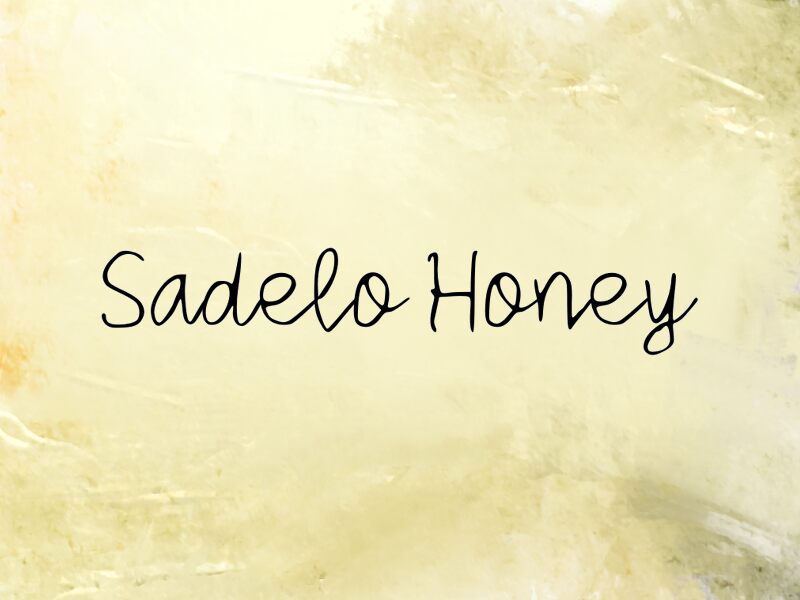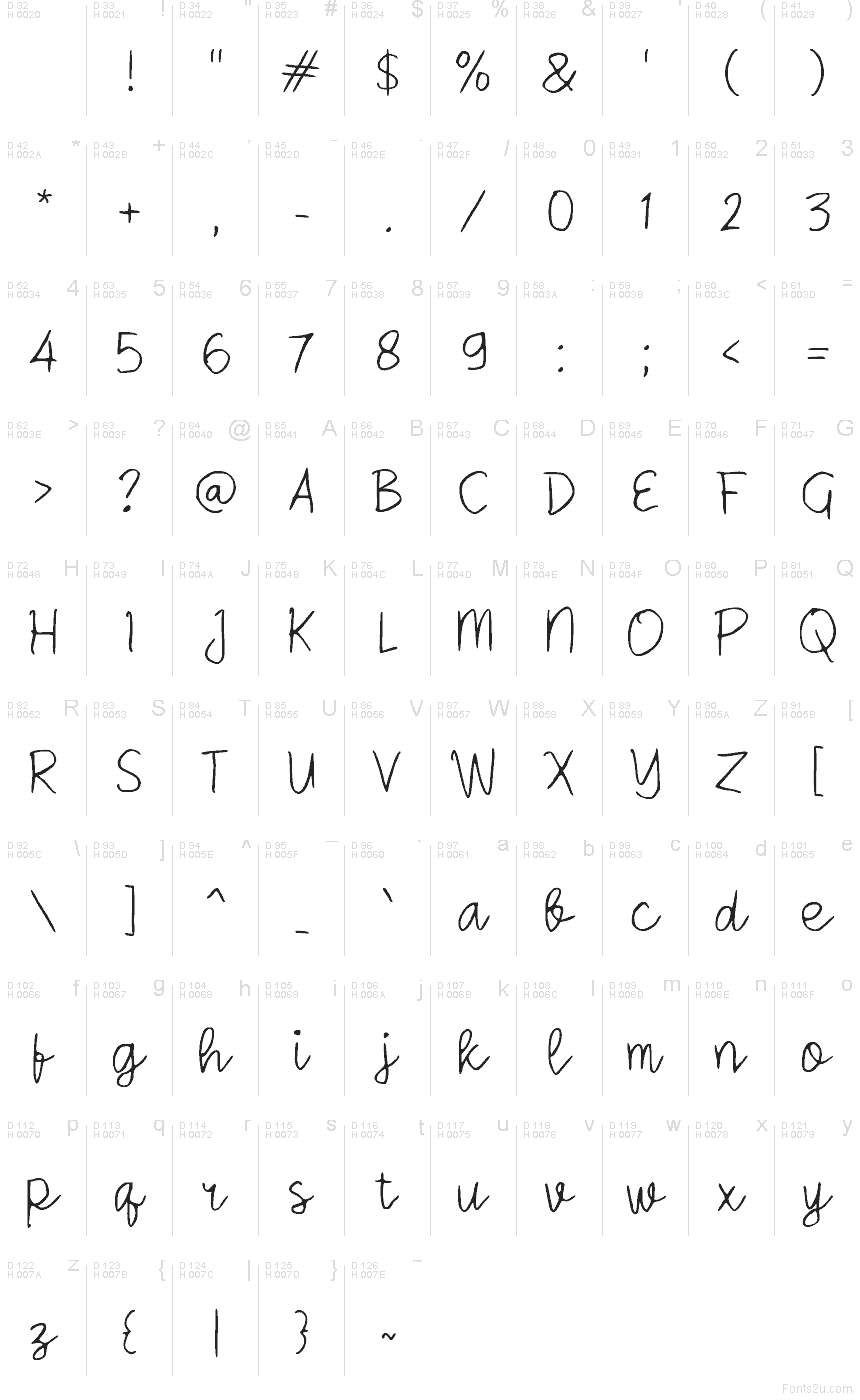
Sadelo Honey
Sadelo Honey font by wepfont.com is a free handwritten font that captures the feel of a quick, confident note scribbled in black ink. Its letters are slim, gently slanted, and loosely looped, giving text a breezy, personal tone without slipping into messy or childish. The steady rhythm and open spacing make it easy to read even at smaller sizes, so you get that warm, handwritten charm without sacrificing clarity.
Using Sadelo Honey, this free font shines on invitation titles, quote graphics, social media posts, product packaging, casual branding, and journaling pages. It brings a soft, approachable voice wherever you need words to feel human and unscripted. Pair this handwritten typeface with a clean geometric sans for body text, and let Sadelo Honey handle the headlines and short phrases at slightly larger sizes for the sweetest results.